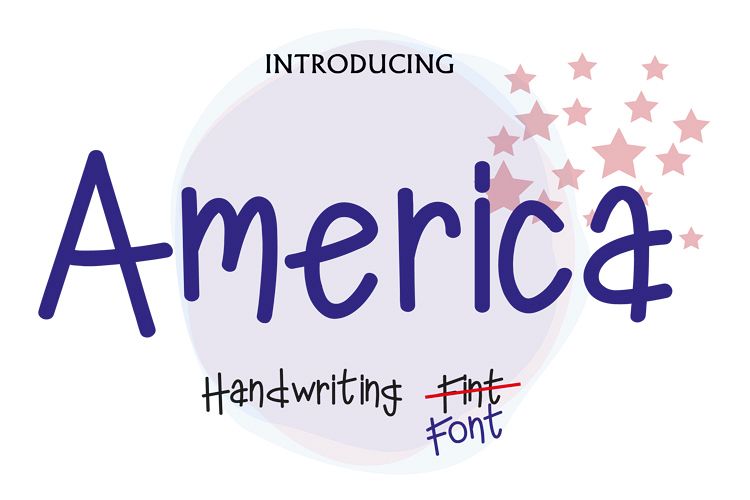
America
America-Regular
America is a new handwritten handwriting with style, suitable for design posters, magazines, tshirt, invitation for business cards and others